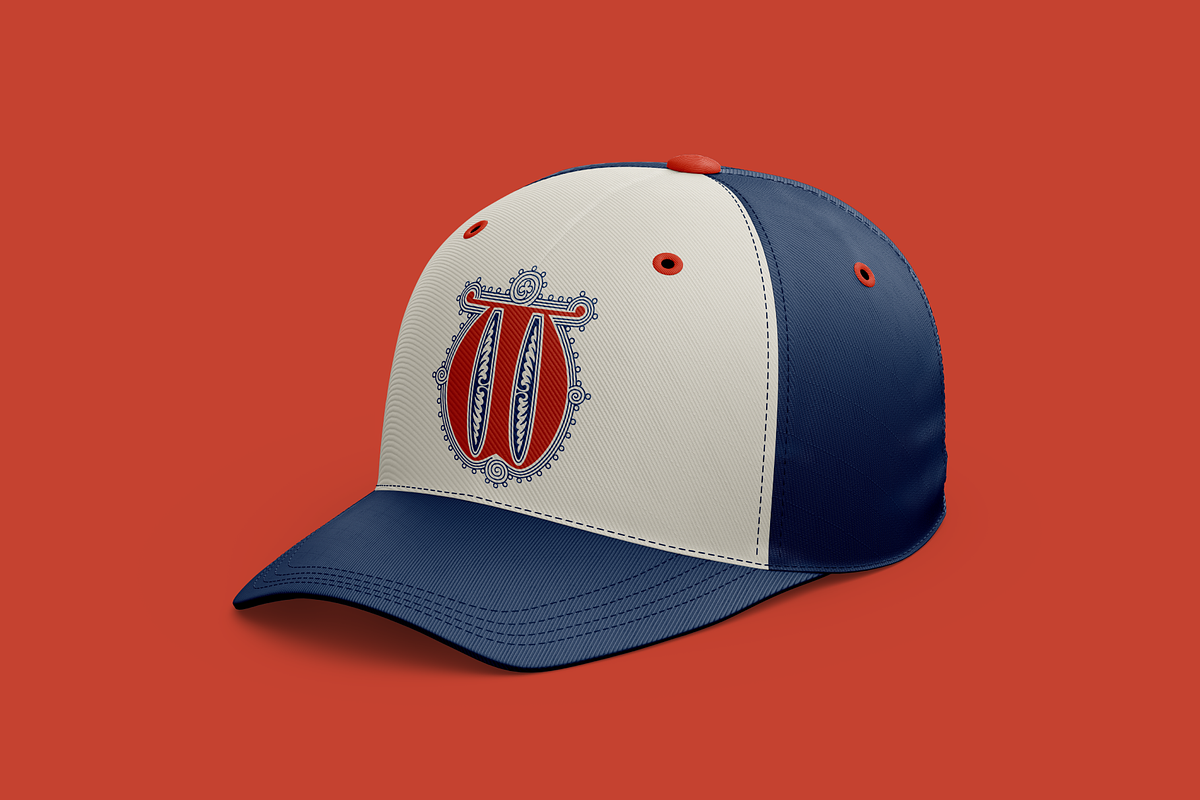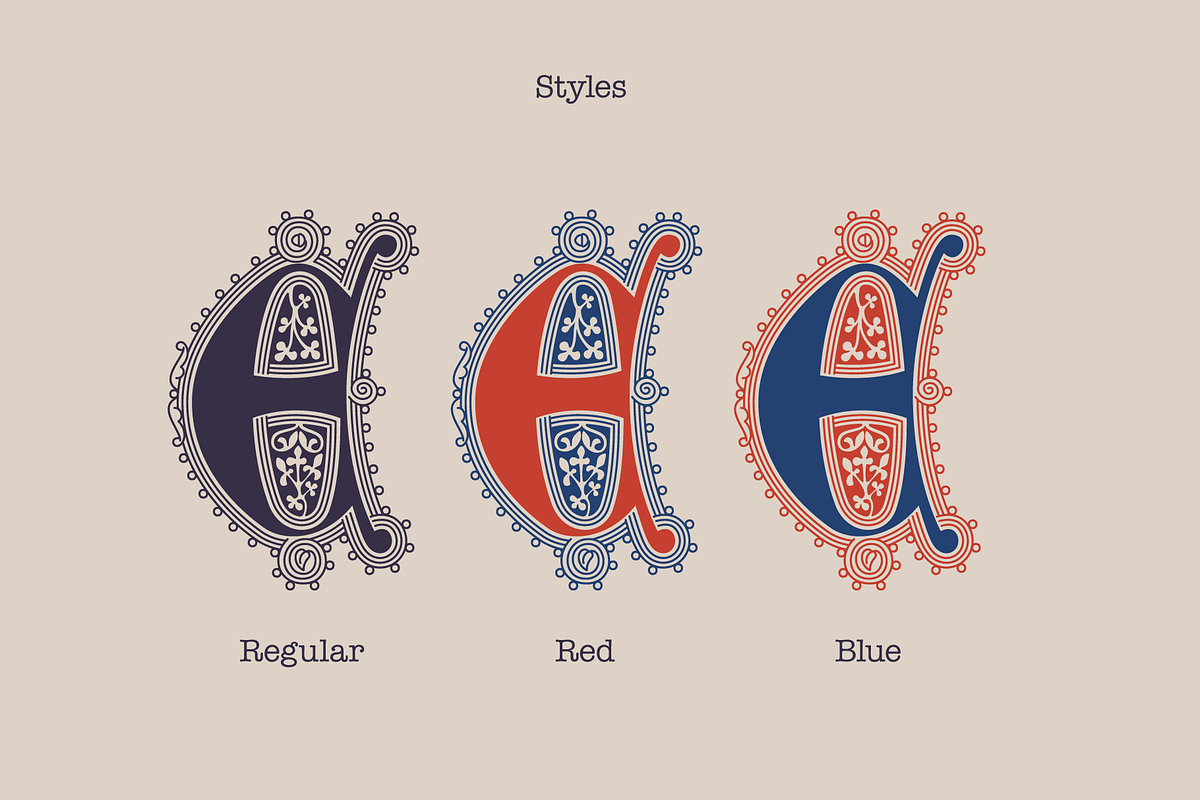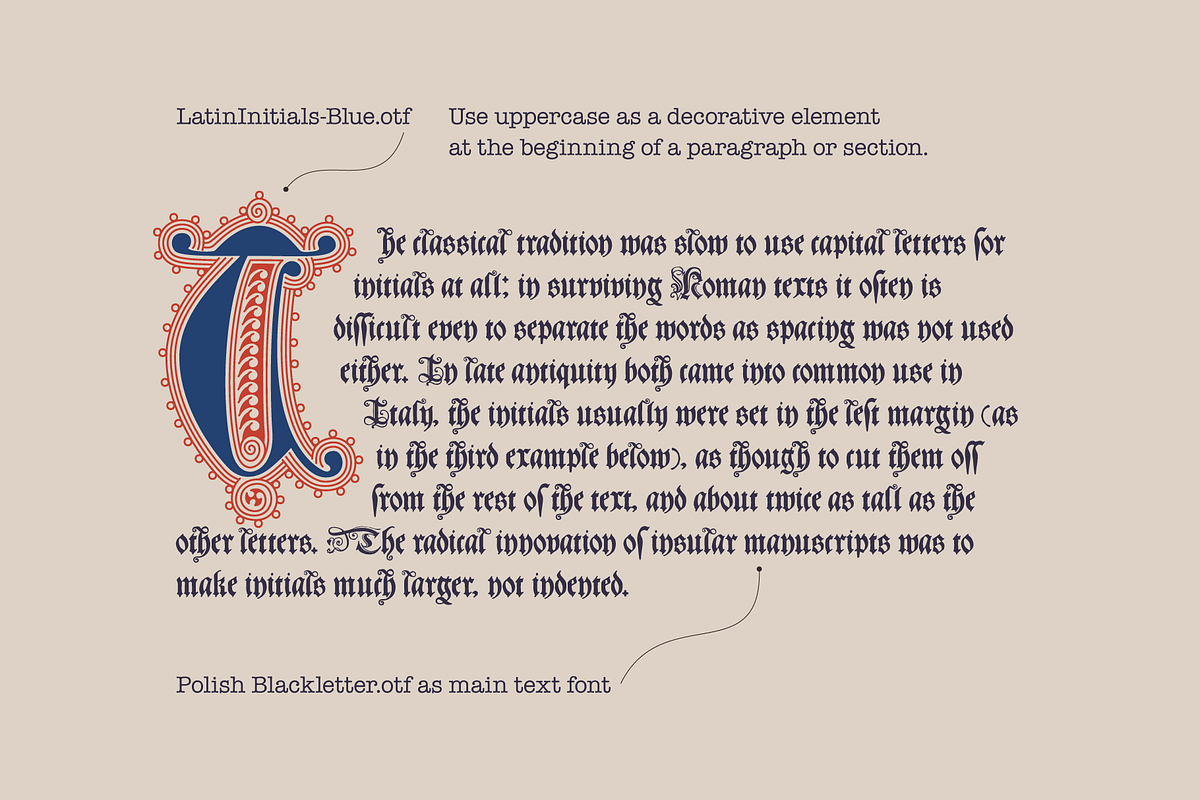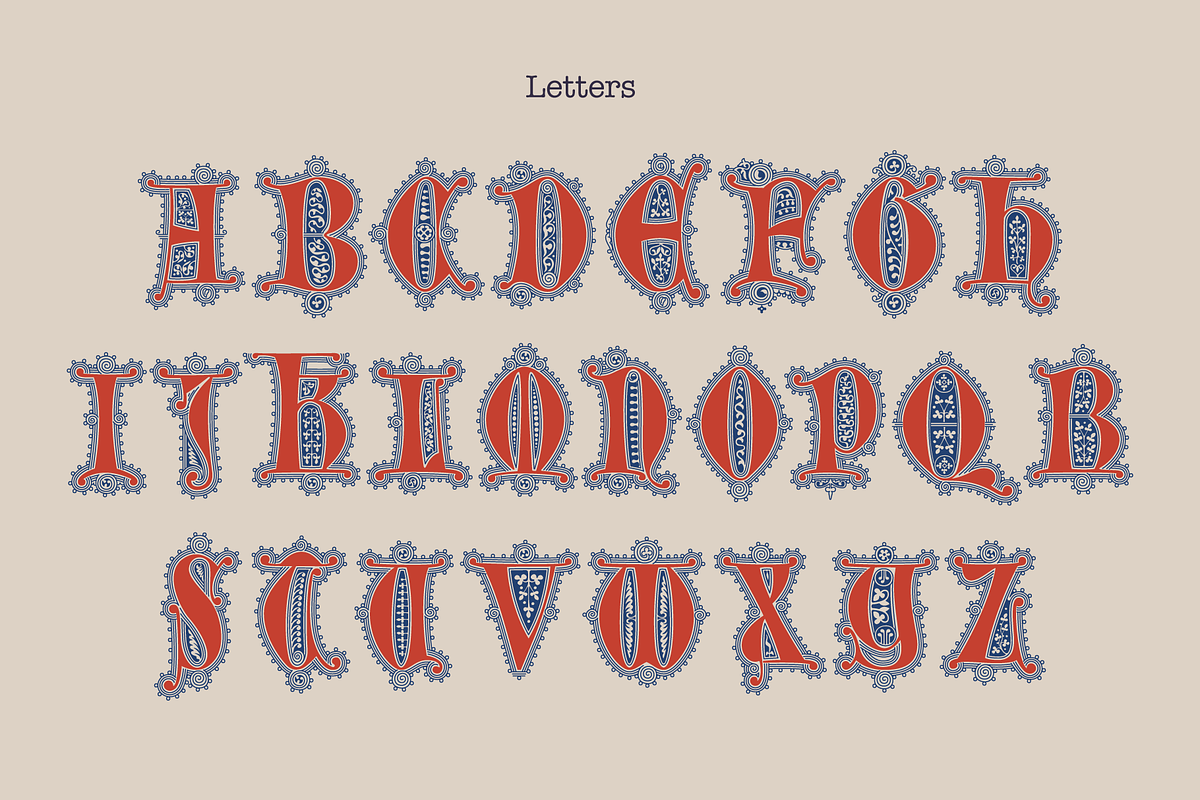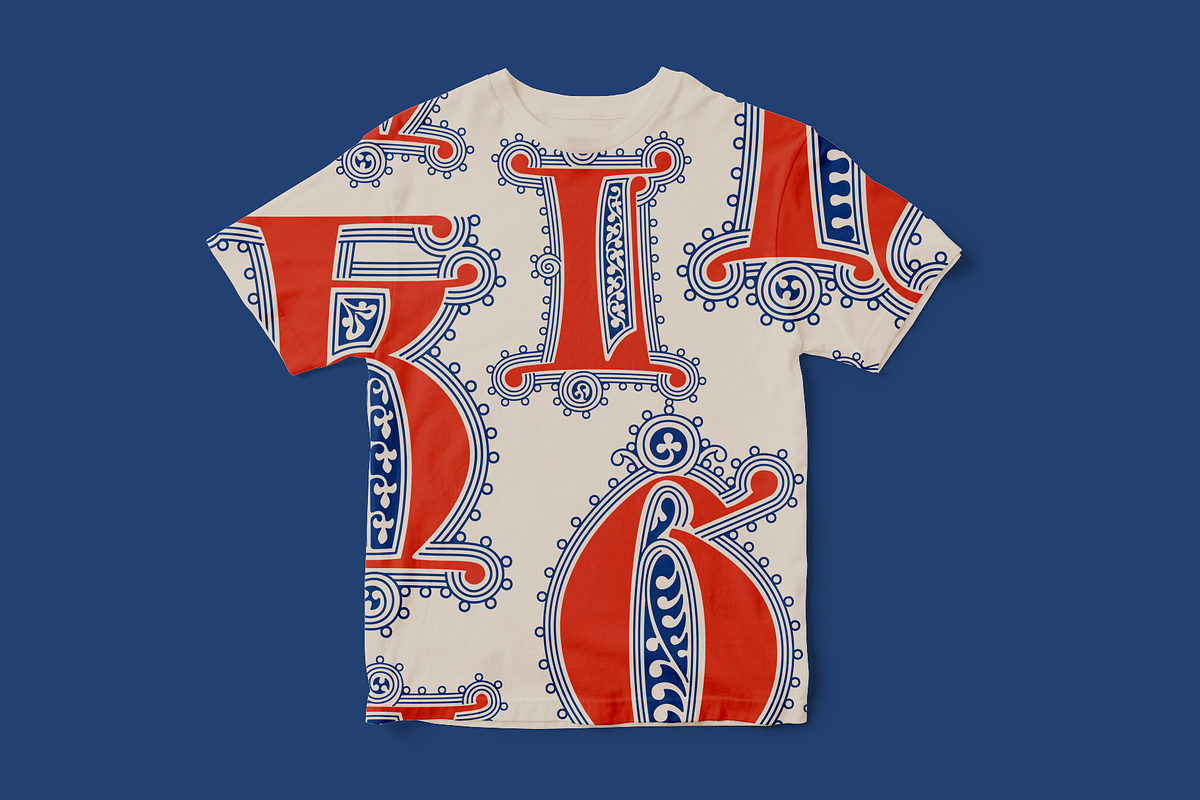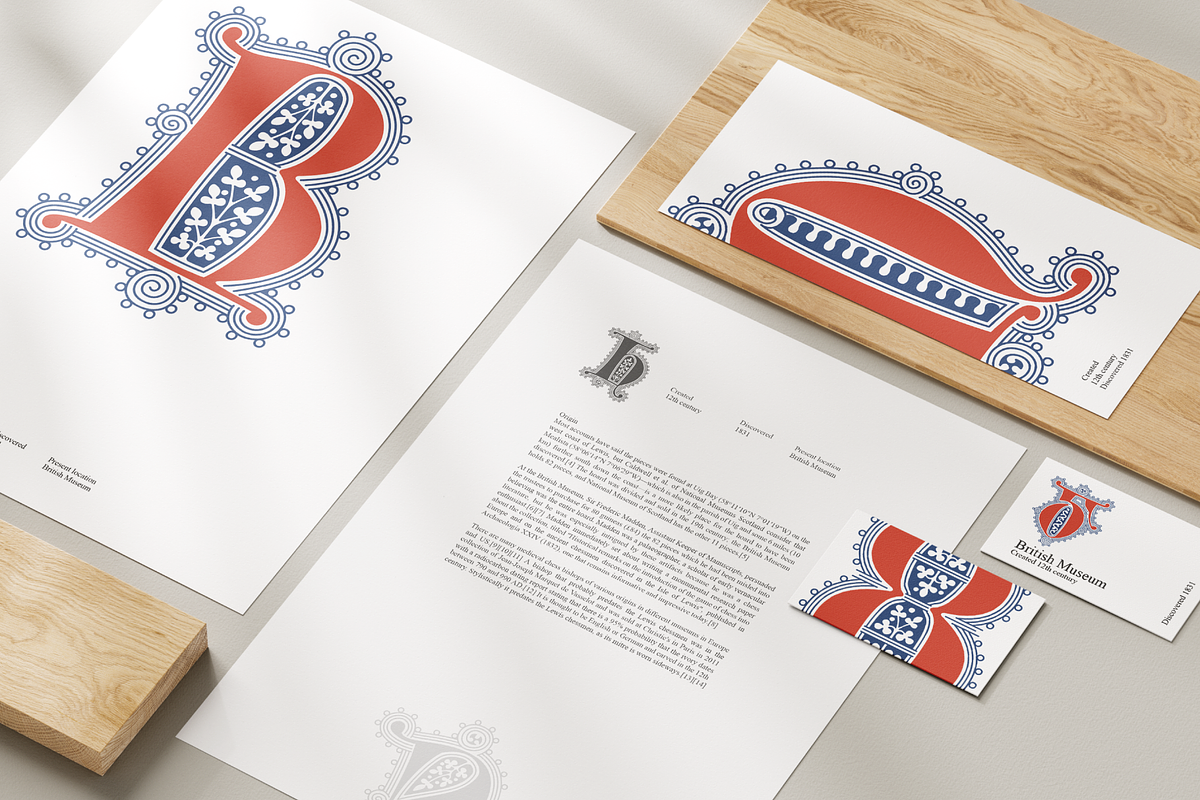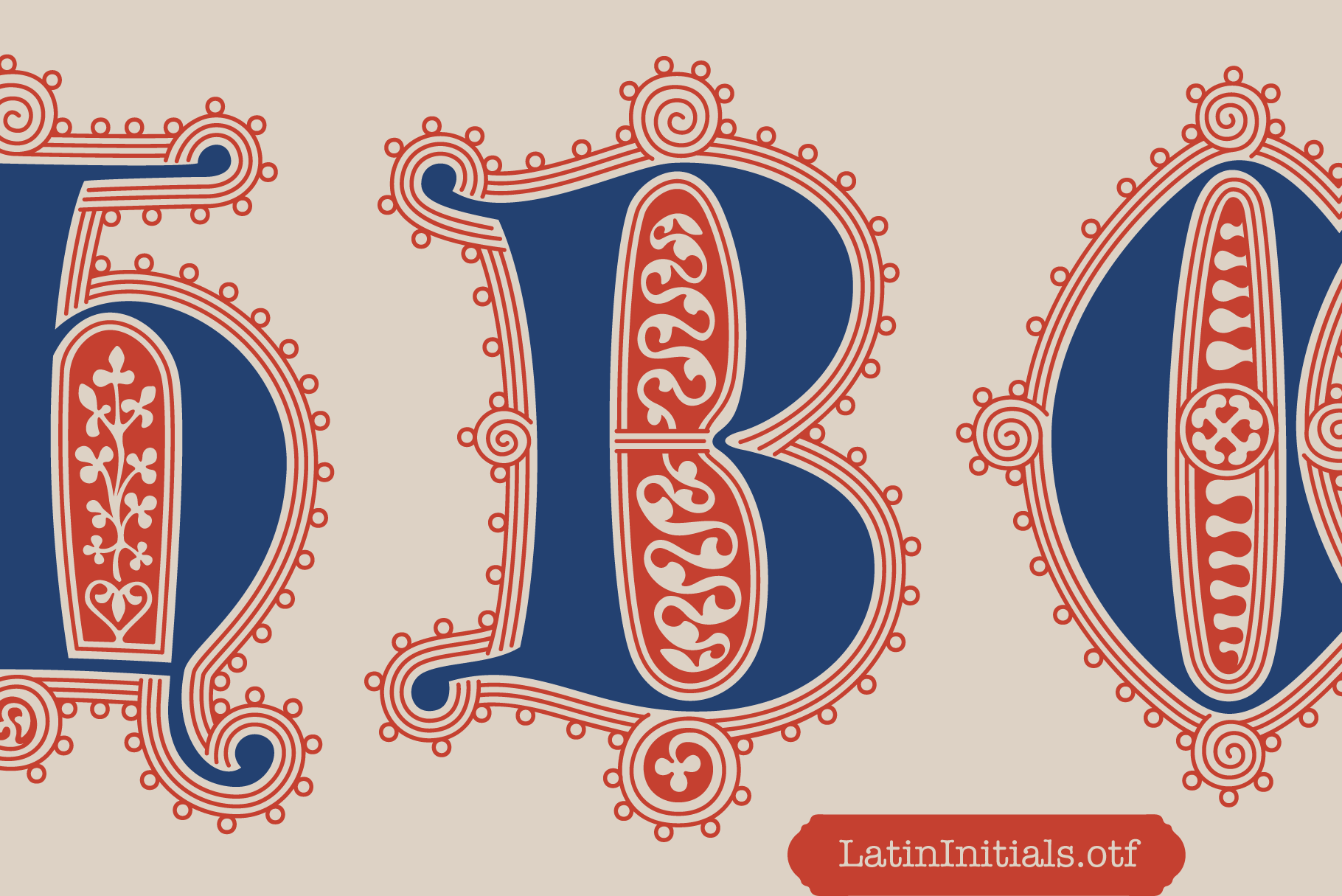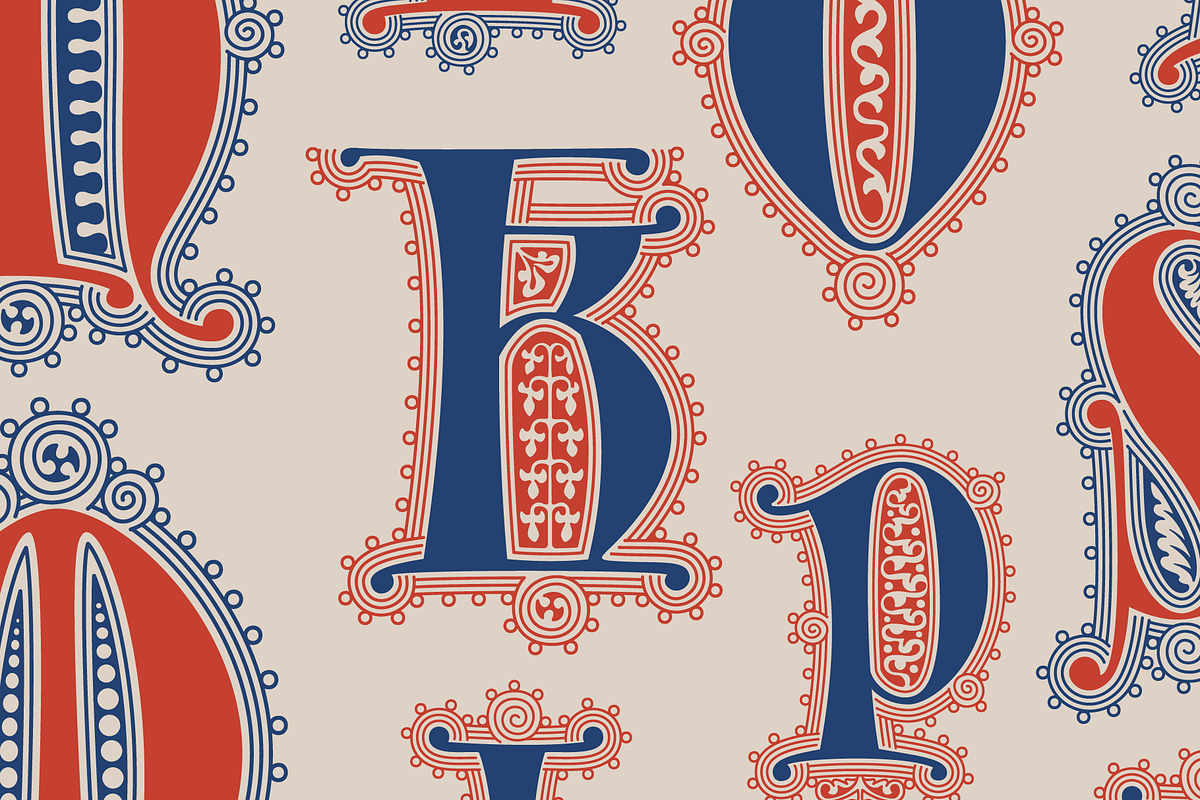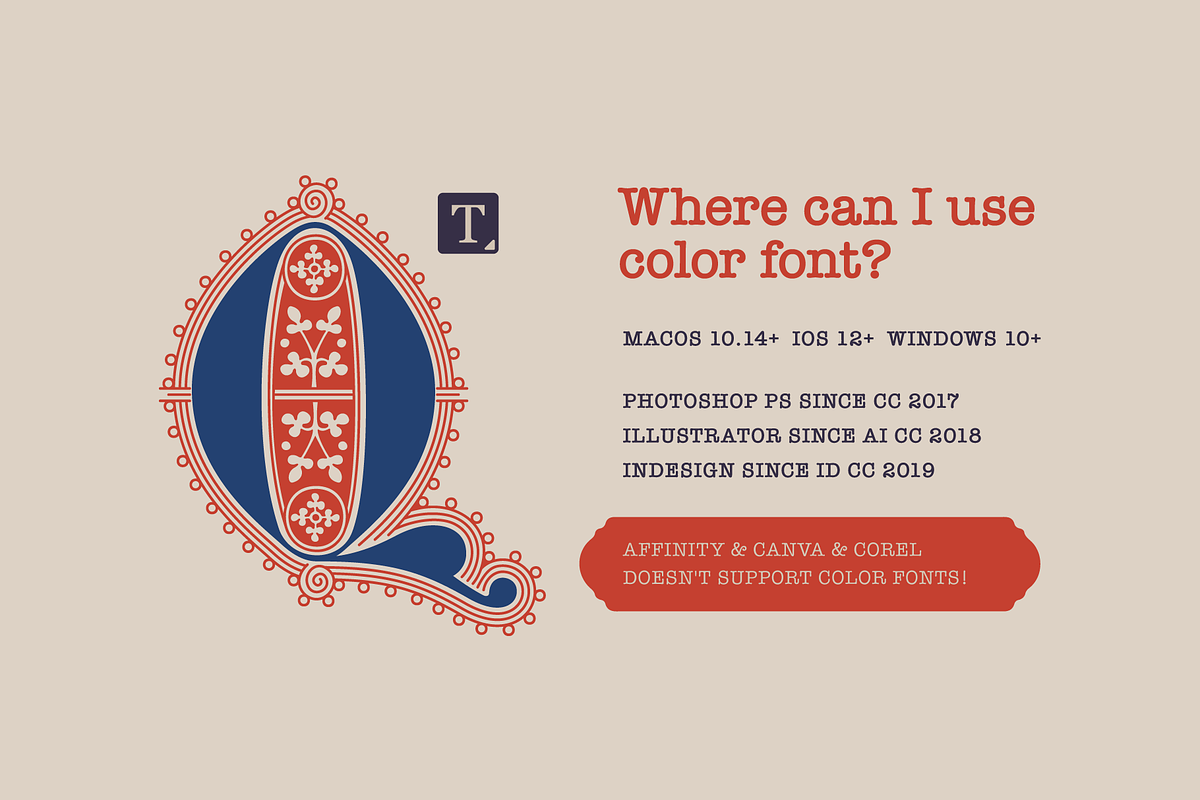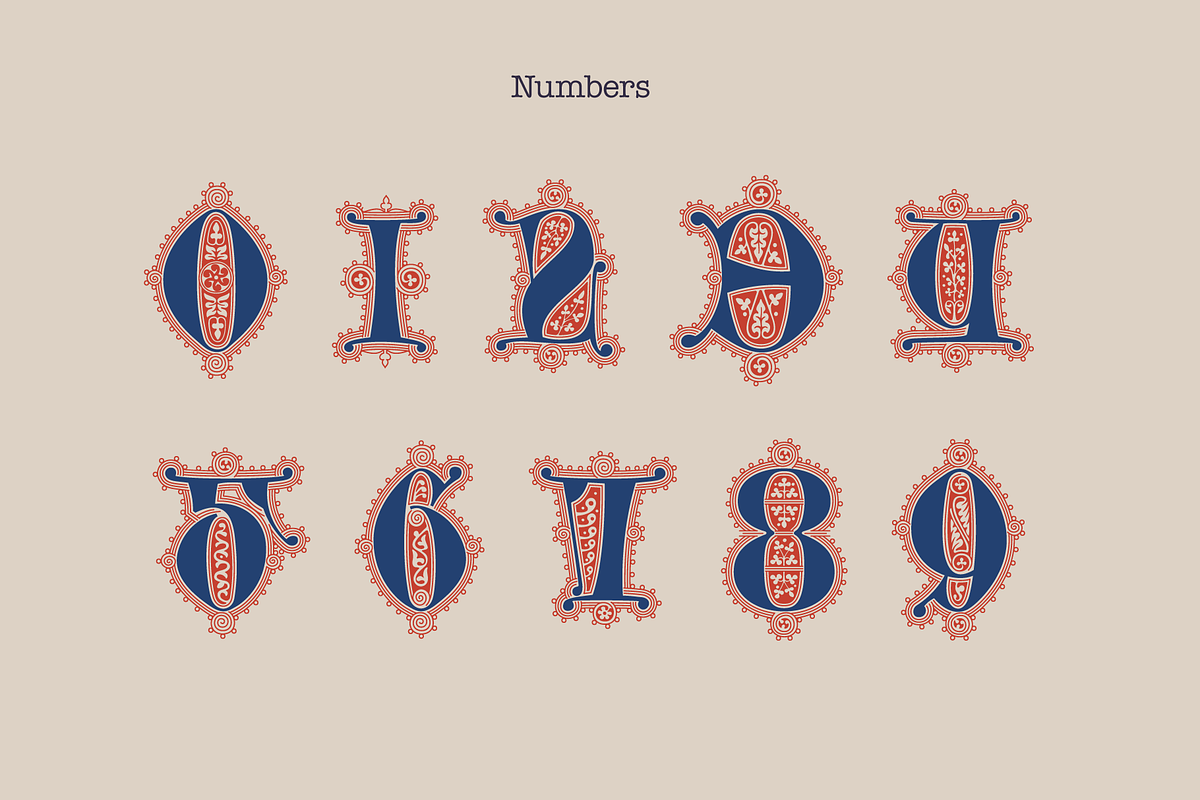
Latin Initials Gothic font family
Here is my classic style red and blue Latin Initials font family inspired by XIV century publications gradual. The strange symbolic grotesque figures of the XII century gave way to naturalistic depictions of flowers.
A manuscript from the first half of the XIV century is an excellent example of an illuminated gradual, one of the main liturgical books of the Roman Catholic Church. It intended for the choir and containing the texts and notes of the hymns of the Mass.
Graduals, as a rule, were executed in the form of very large format codes, written in large letters. The most important sections were highlighted with large ornamental initials I used for the inspiration. The decoration of the codex consists of two-color filigree initials.
On the last page of the manuscript there is an owner's note indicating that the gradual belonged to Francesco Lunani from Gubbio.
- A-Z Uppercase (lowercase are the same)